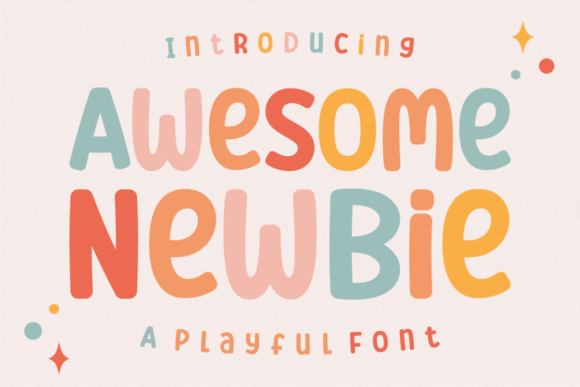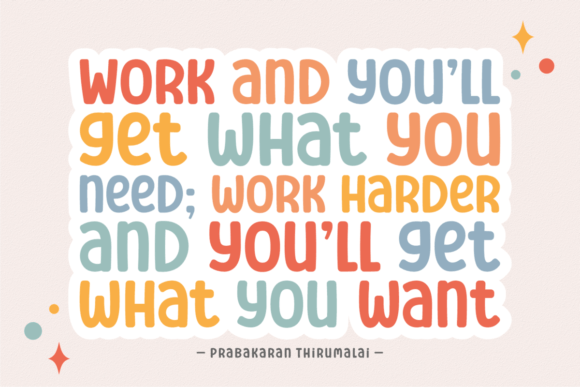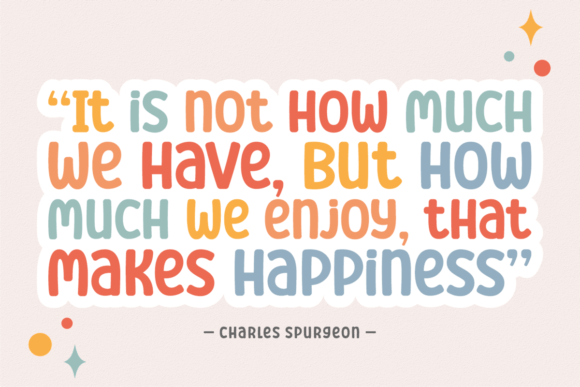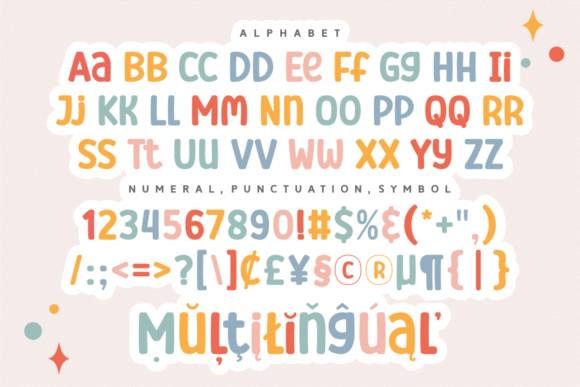
Awesome Newbie Font
About the Awesome Newbie Font
Elevate your designs with Awesome Newbie Font, a font that combines sophistication with readability. Awesome Newbie is a fun, bold, and cheerful display font. Its chubby characters and lighthearted nature make this typeface a must-have in your fonts library! Use it to express your creative and playful design ideas.
Awesome Newbie Font shines in headlines, short slogans, and playful branding projects. Its bold, rounded forms work particularly well for children’s products, fun social media graphics, and eye-catching posters where legibility at smaller sizes isn’t crucial. Avoid using it for body text or long paragraphs; its chunky design can hinder readability in continuous text or UI elements.
Pair Awesome Newbie with a clean sans-serif like Open Sans for a balanced contrast, or a more playful script font like Pacifico to enhance its lighthearted feel. For a more modern approach, consider pairing it with a geometric sans-serif such as Montserrat.
Its core personality is undeniably cheerful and friendly, making it ideal for brands aiming for a youthful, approachable image. The font’s bold weight and rounded forms project a sense of fun and approachability without sacrificing impact.